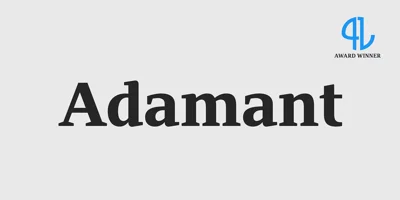
PF Adamant Pro Font
PF Adamant Pro Font is perfect for professional corporate branding, executive business communications, high-end consulting firms, premium financial services, luxury legal practices, architectural design studios, sophisticated marketing materials, authoritative publication headers, prestigious award certificates, and refined business applications that demand unwavering professionalism and uncompromising quality standards.
What makes PF Adamant Pro Font exciting is its steadfast commitment to typographic excellence through its resolute letterforms that project unwavering confidence and professional determination. This distinguished typeface embodies the spirit of business leadership and corporate authority with its adamant character that speaks of decisive decision-making, unshakeable principles, and the kind of professional reliability that builds lasting business relationships. The font's commanding presence inspires trust and communicates serious business intentions.
The PF Adamant Pro Font family includes comprehensive weight variations from light to black, along with matching italic styles that provide complete typographic flexibility. Special professional symbols, corporate ornaments, and business-oriented character sets complement the main typeface, while precise kerning ensures optimal readability for both detailed contracts and bold corporate presentations requiring absolute clarity.
PF Adamant Pro Font offers business professionals access to typography that never compromises on quality. Its expertly engineered letterforms maintain exceptional legibility while projecting an image of professional integrity and business excellence. The font's versatile nature adapts seamlessly from intimate executive correspondence to massive corporate headquarters displays.